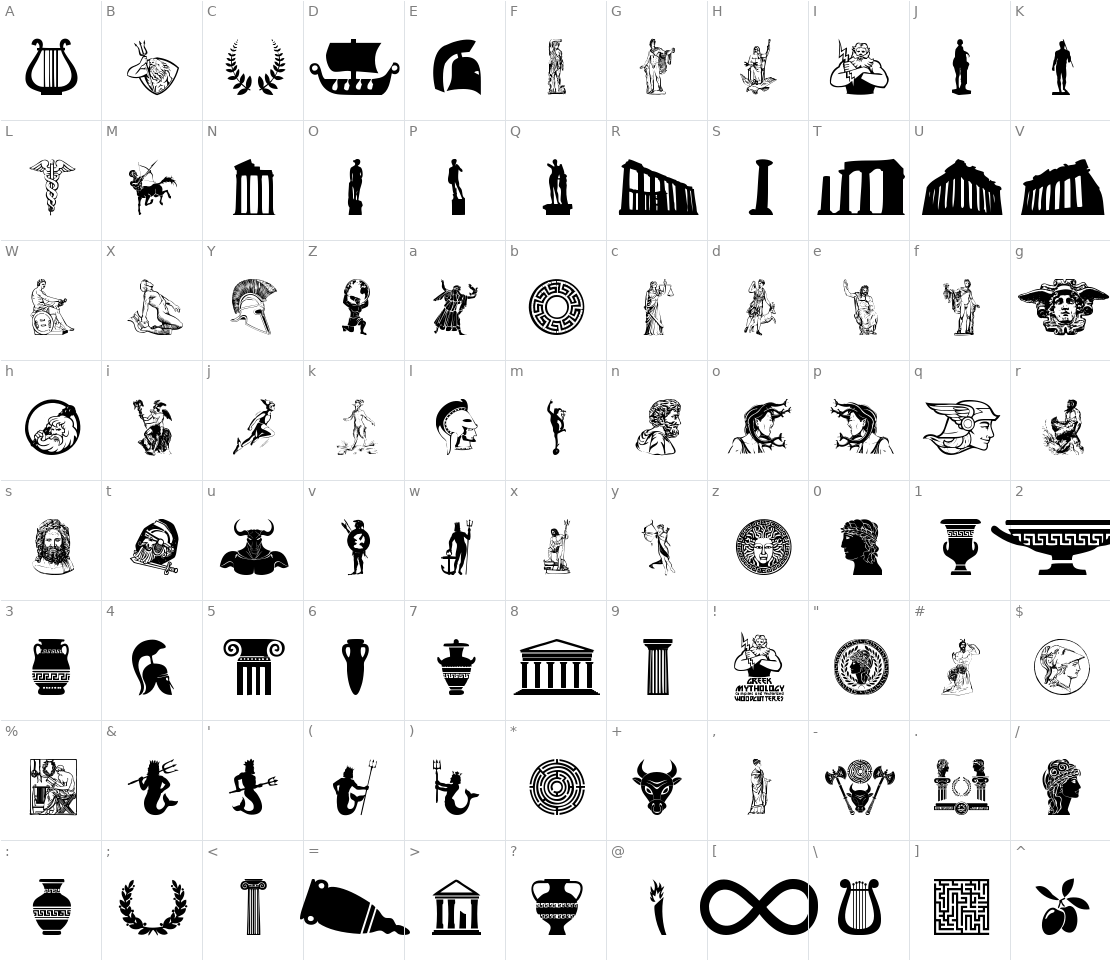
Greek Mythology
Greek Mythology is a decorative symbol font from Woodcutter featuring illustrated figures drawn from ancient Greek myth, including gods, creatures, and classical motifs. Rather than traditional letters, it functions as a collection of thematic illustrations, useful for adding mythological imagery to posters, educational materials, or themed design work without sourcing separate clip art.